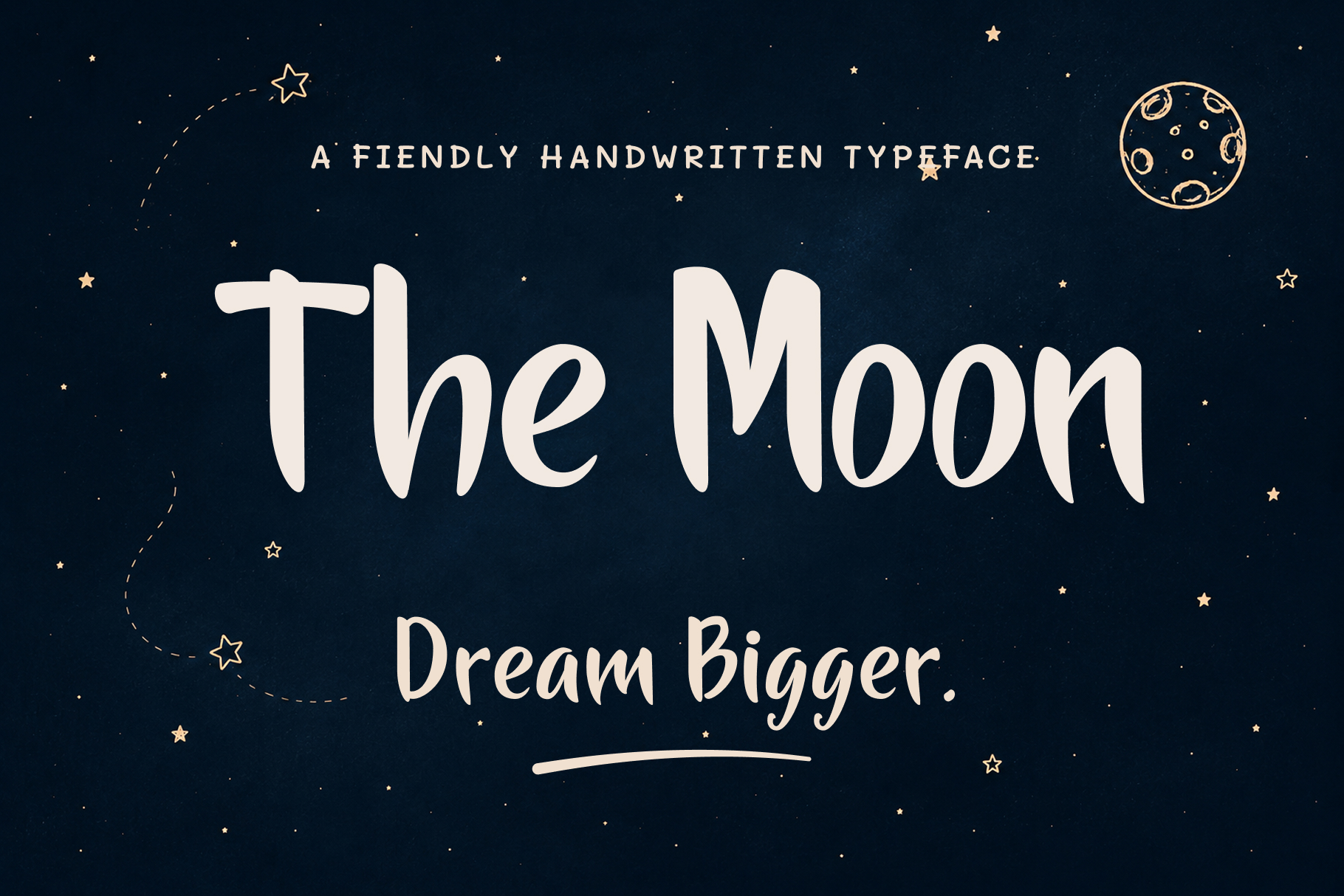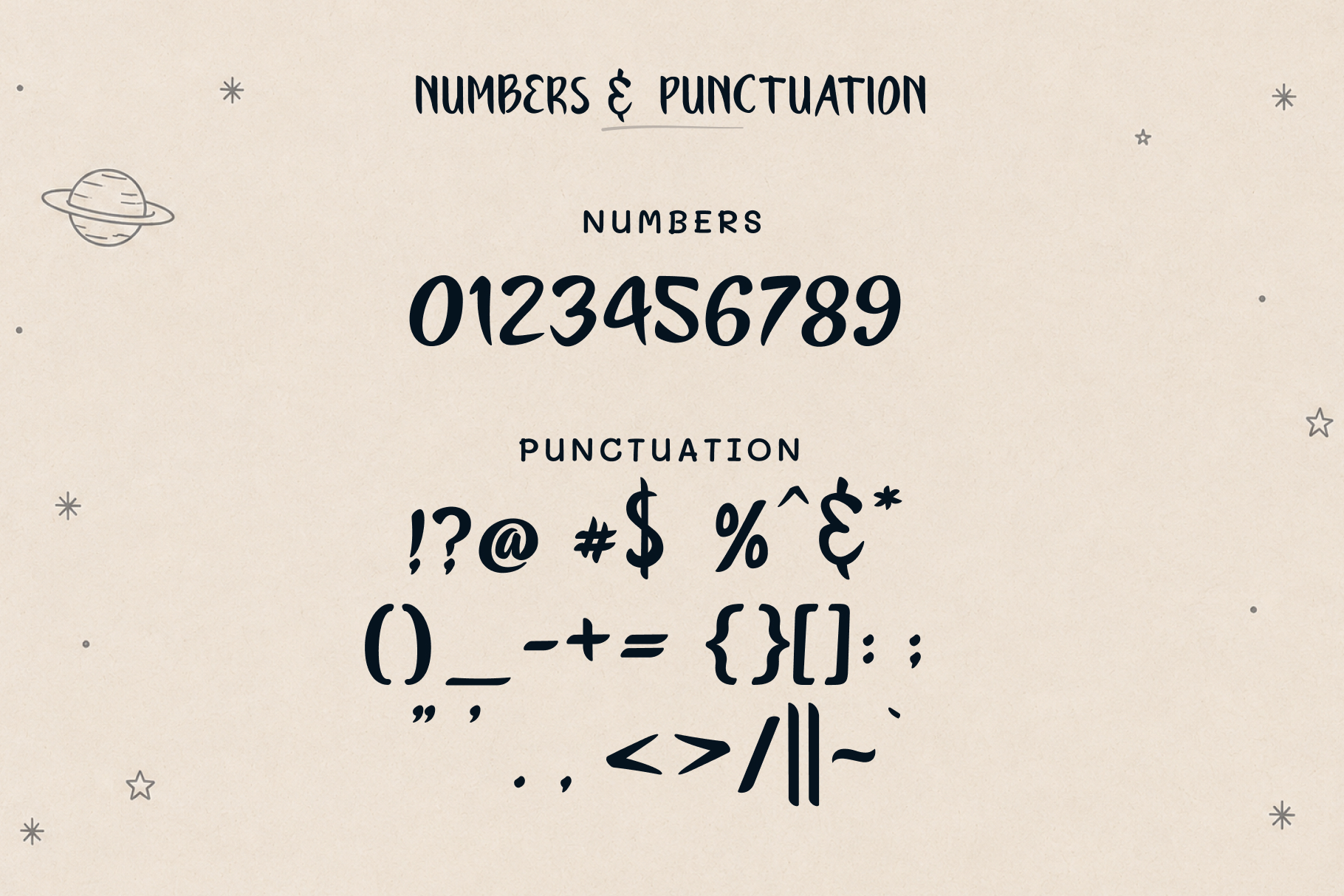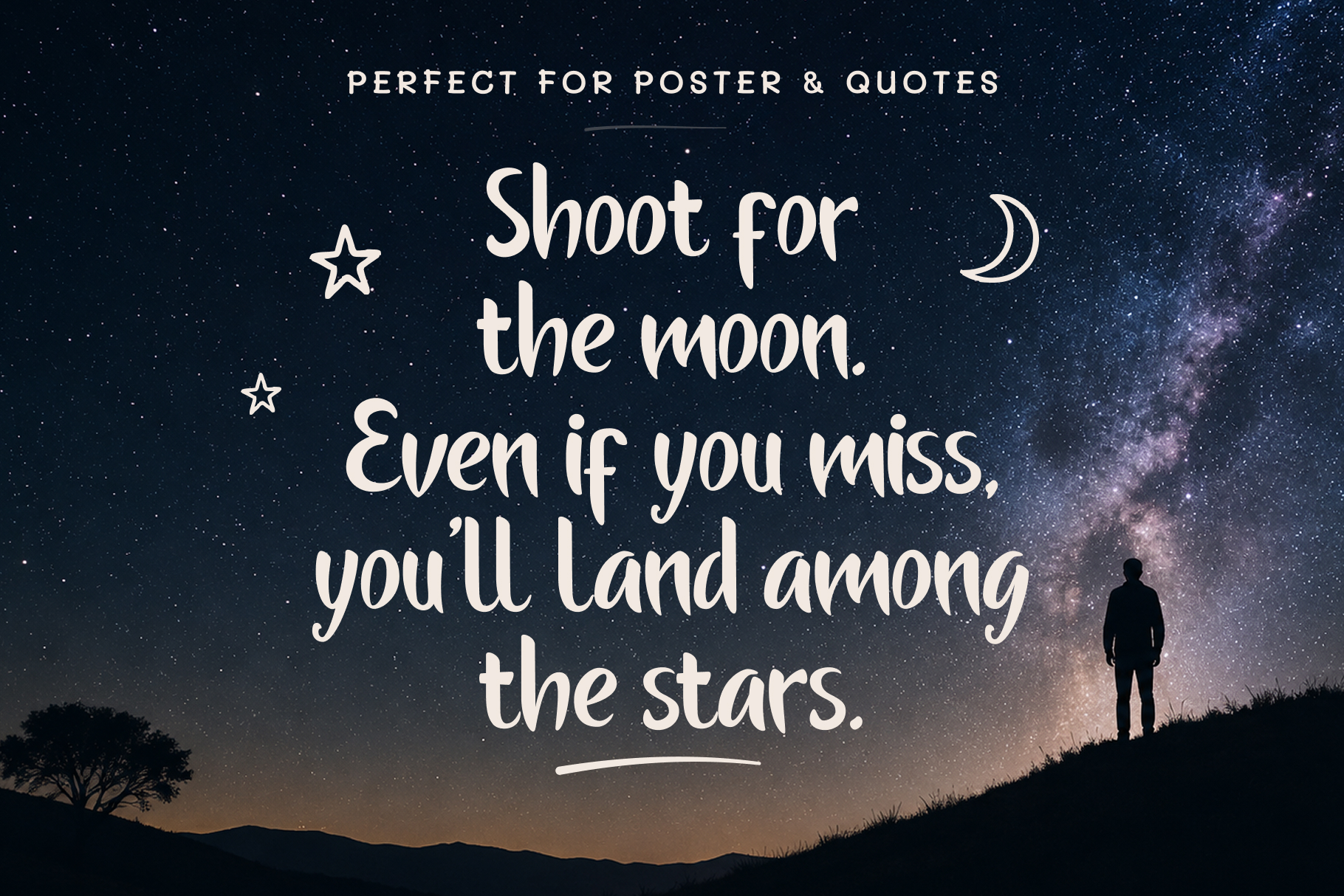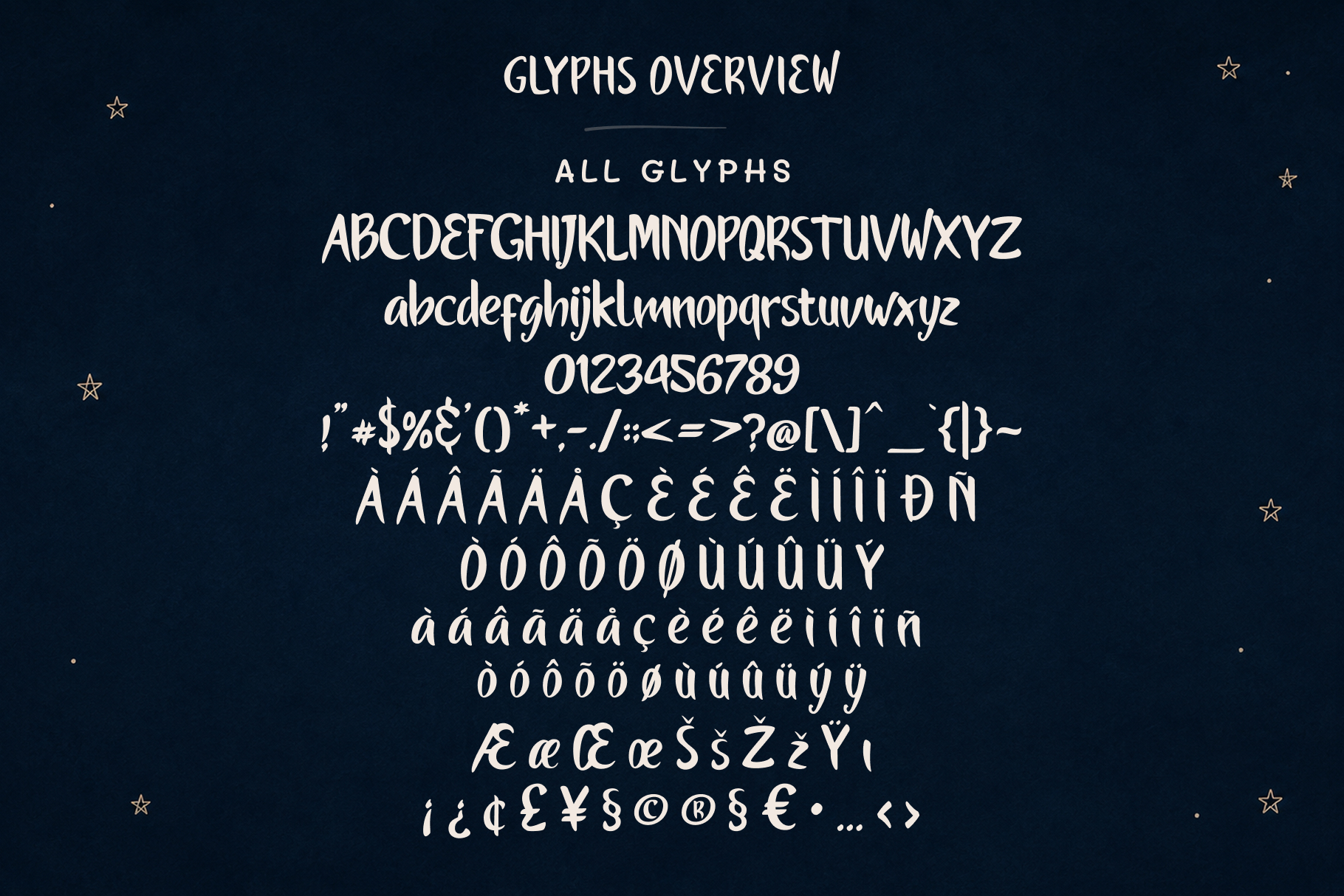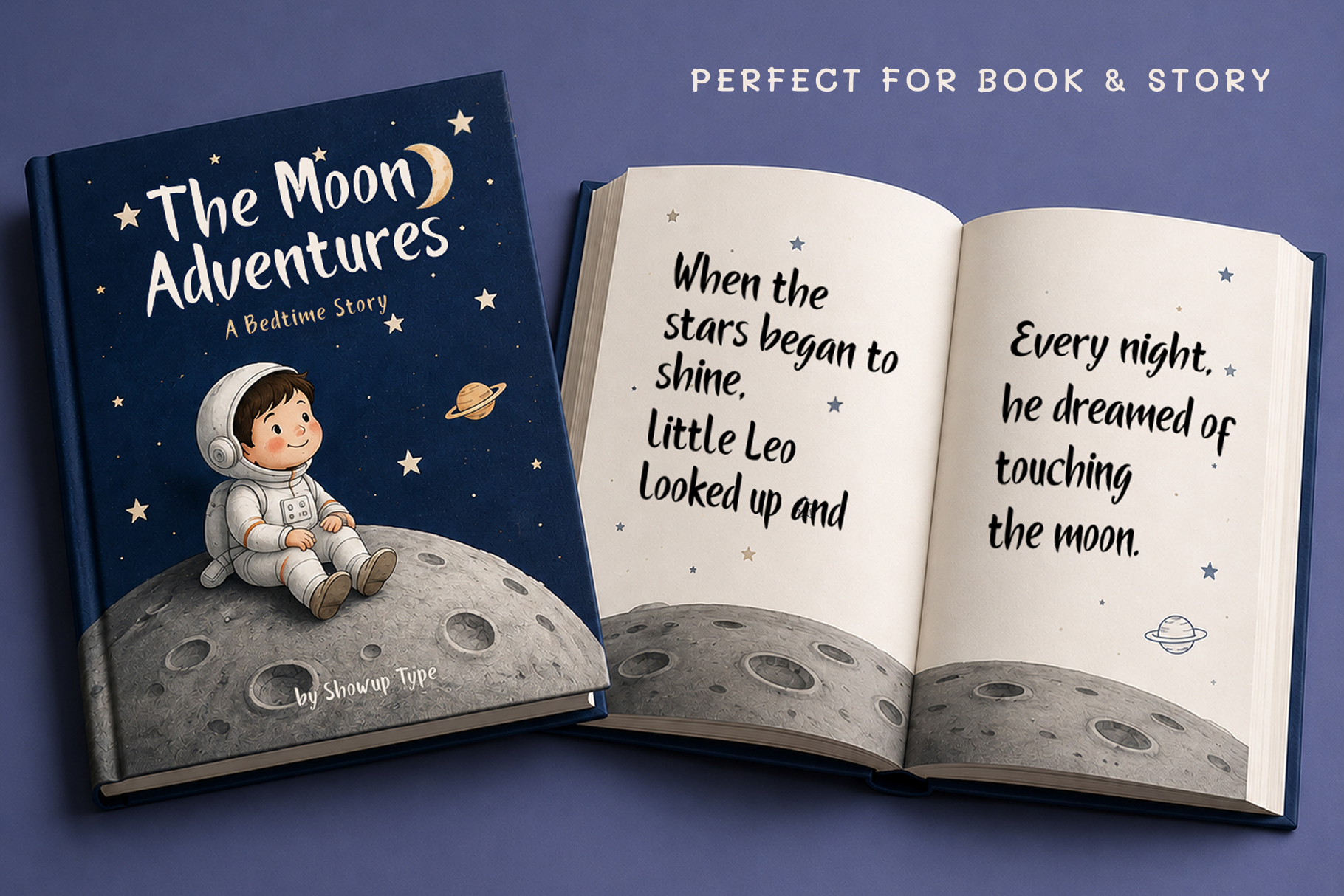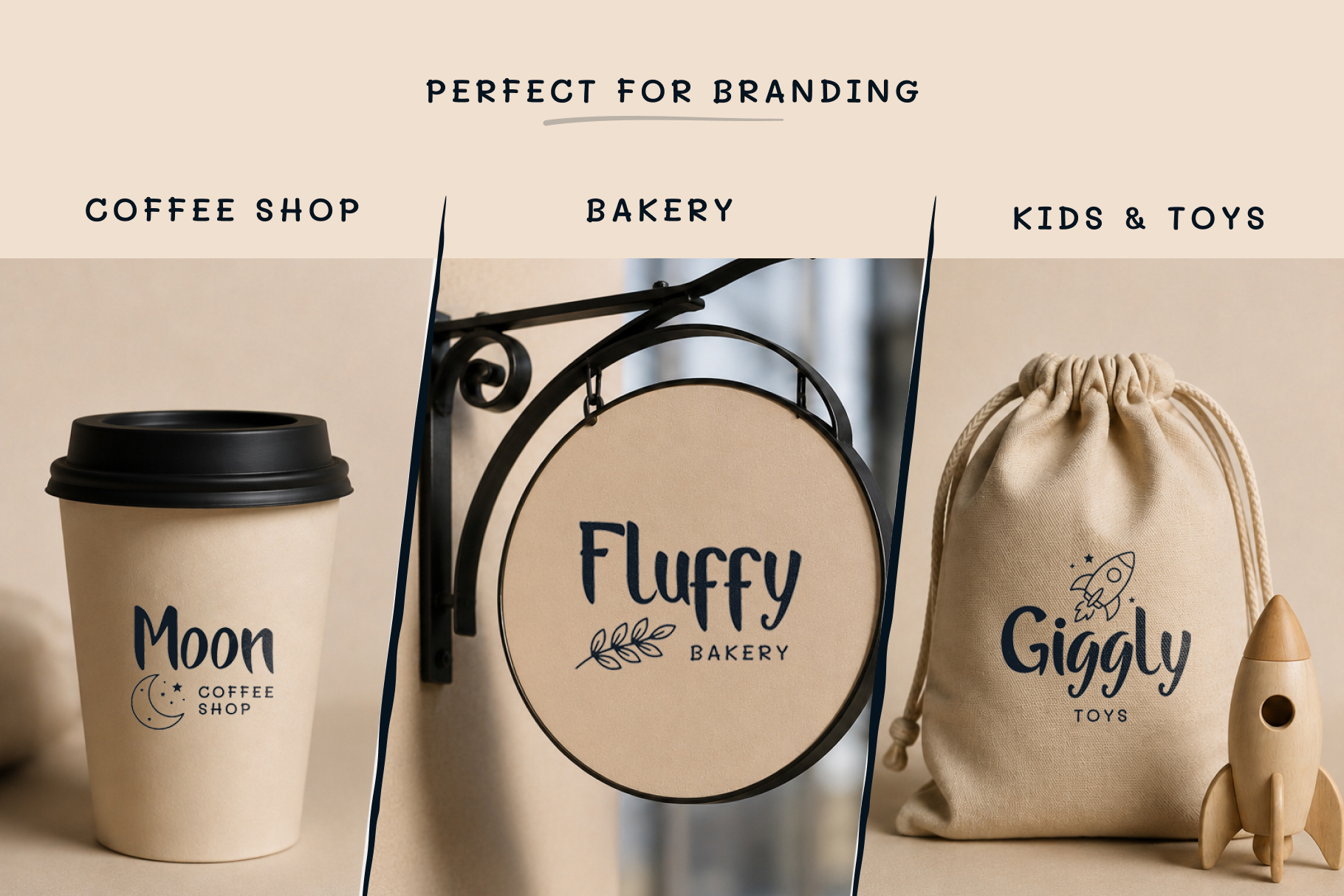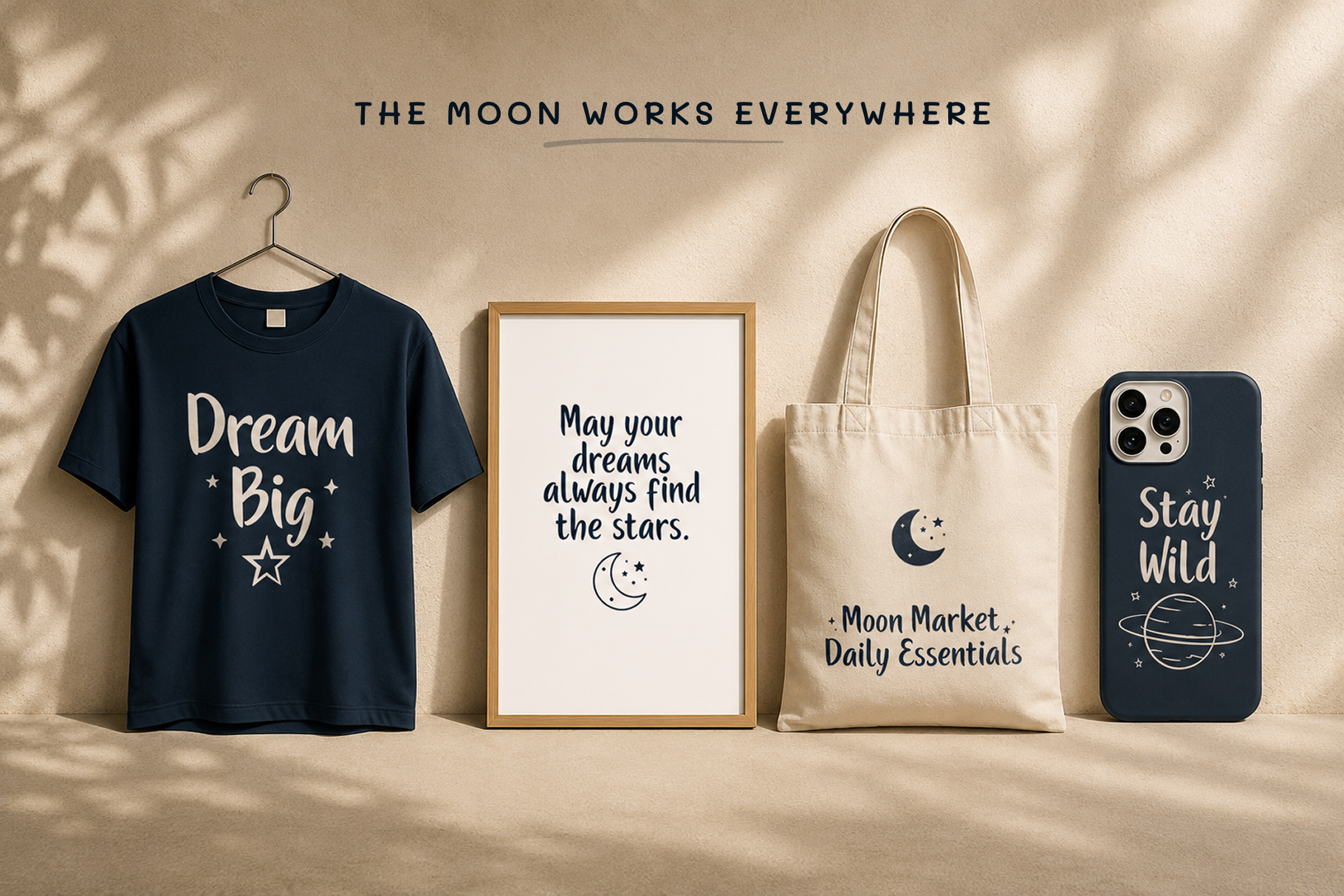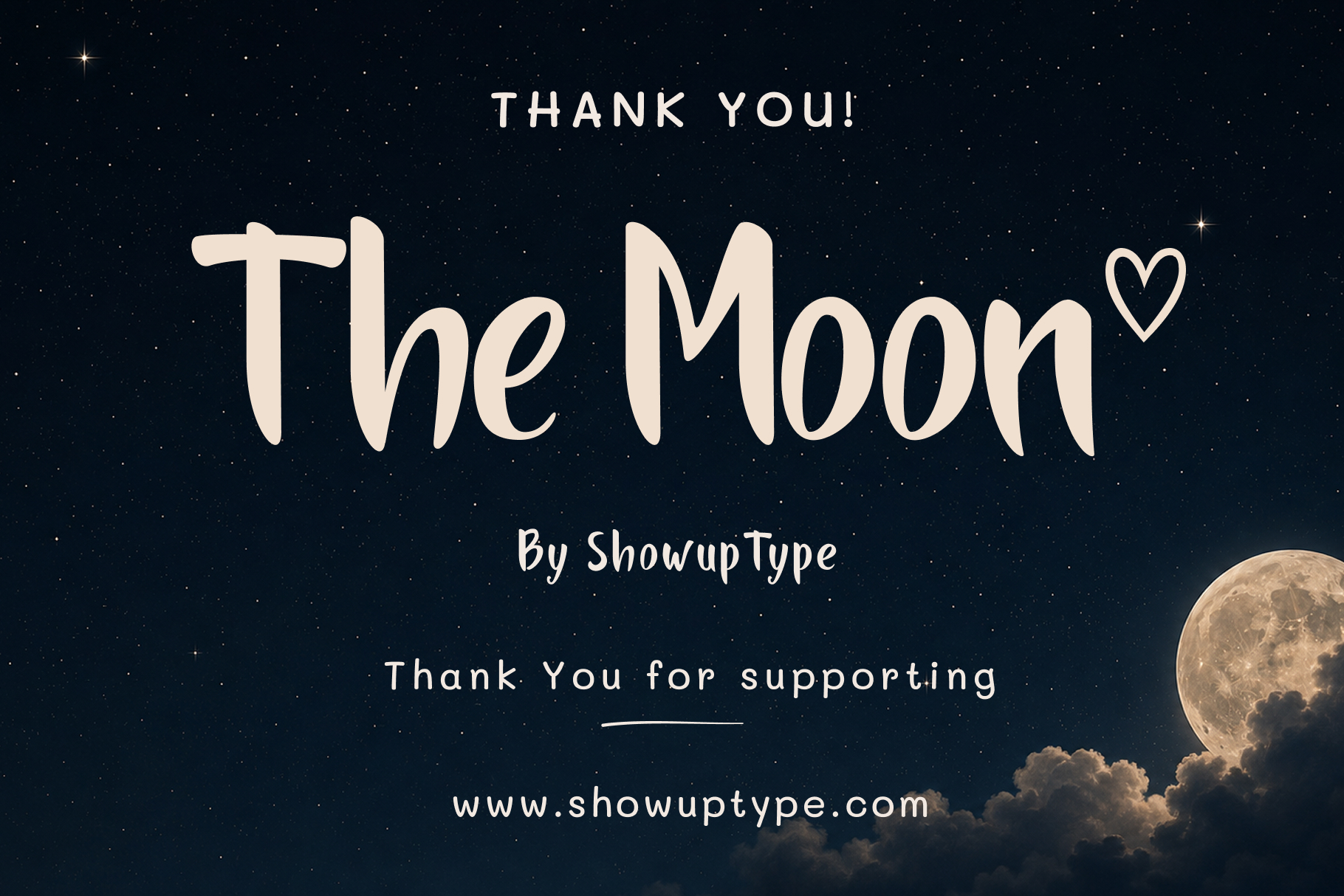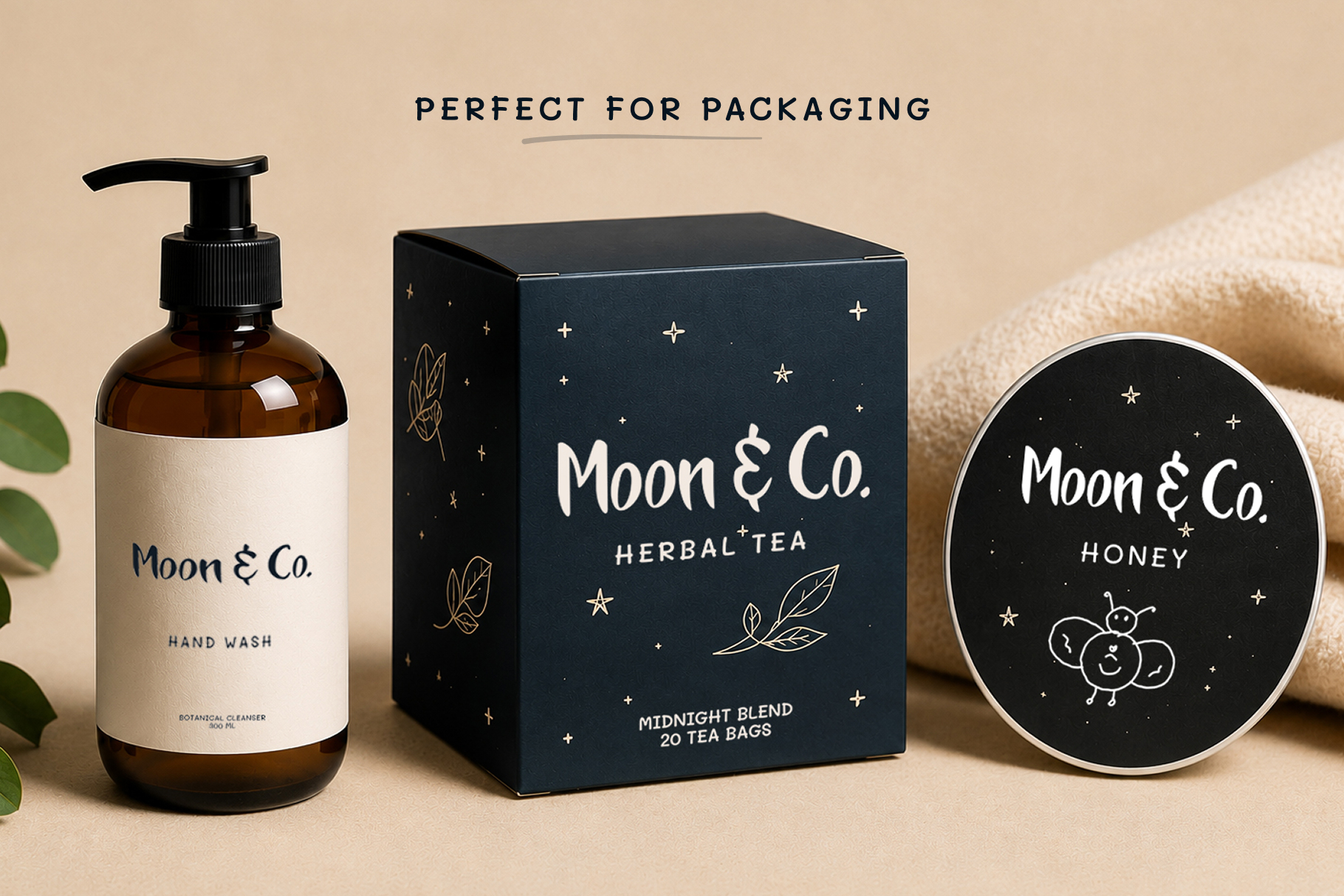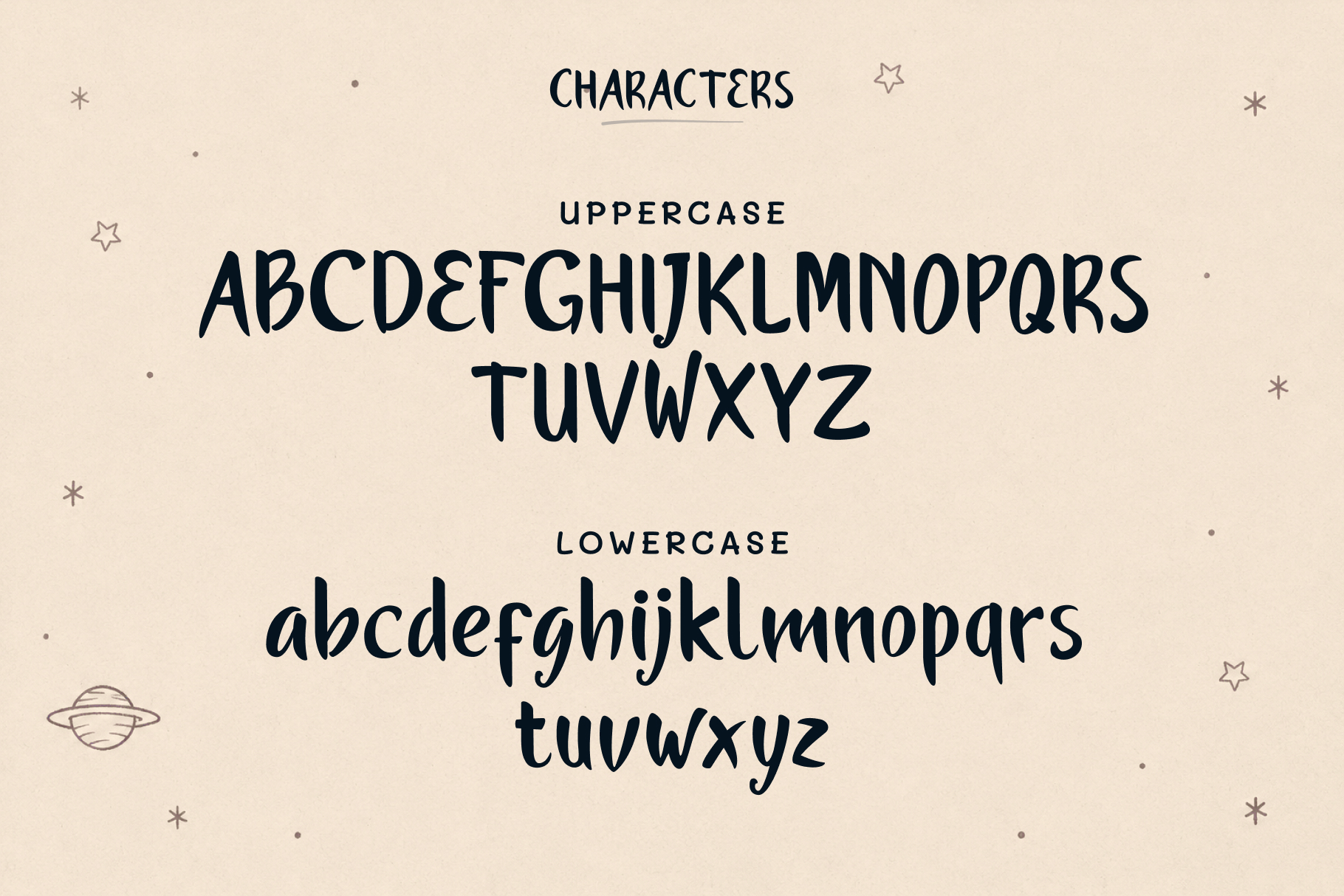
The Moon
The Moon is created for designers, creators, and businesses looking for a friendly handwritten font that feels natural, playful, and full of personality.
Elegant Design for Meaningful Brands
Ligatures
fi
fl
The Moon – Handwritten Typeface
Meet The Moon, a warm and playful handwritten typeface designed to bring personality and charm into every project. Inspired by peaceful moonlit nights, this font features soft curves, natural strokes, and a friendly handwritten feel that makes your designs look approachable and memorable.
Whether you’re creating children’s books, branding, social media graphics, packaging, greeting cards, invitations, or cozy café designs, The Moon delivers a casual yet polished appearance that feels authentic and inviting.
Its clean handwritten style makes it easy to read while maintaining a unique handcrafted character, making it suitable for both print and digital projects.
Perfect For
• Branding & Logo Design
• Children’s Books
• Quotes & Typography
• Greeting Cards
• Invitations
• Packaging Design
• Social Media Posts
• Posters & Flyers
• Merchandise
• Website Headers
• Café & Restaurant Branding
• YouTube Thumbnails
Features
• Uppercase & Lowercase
• Numbers & Punctuation
• Multilingual Support